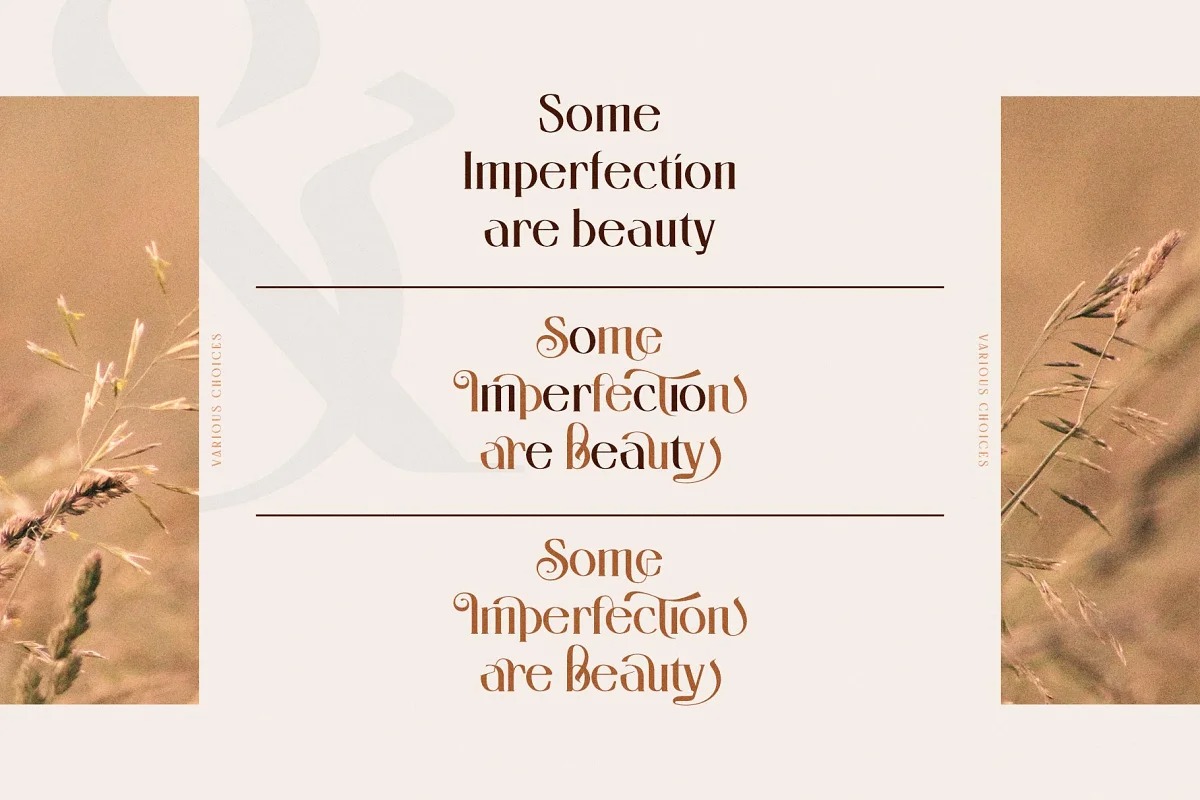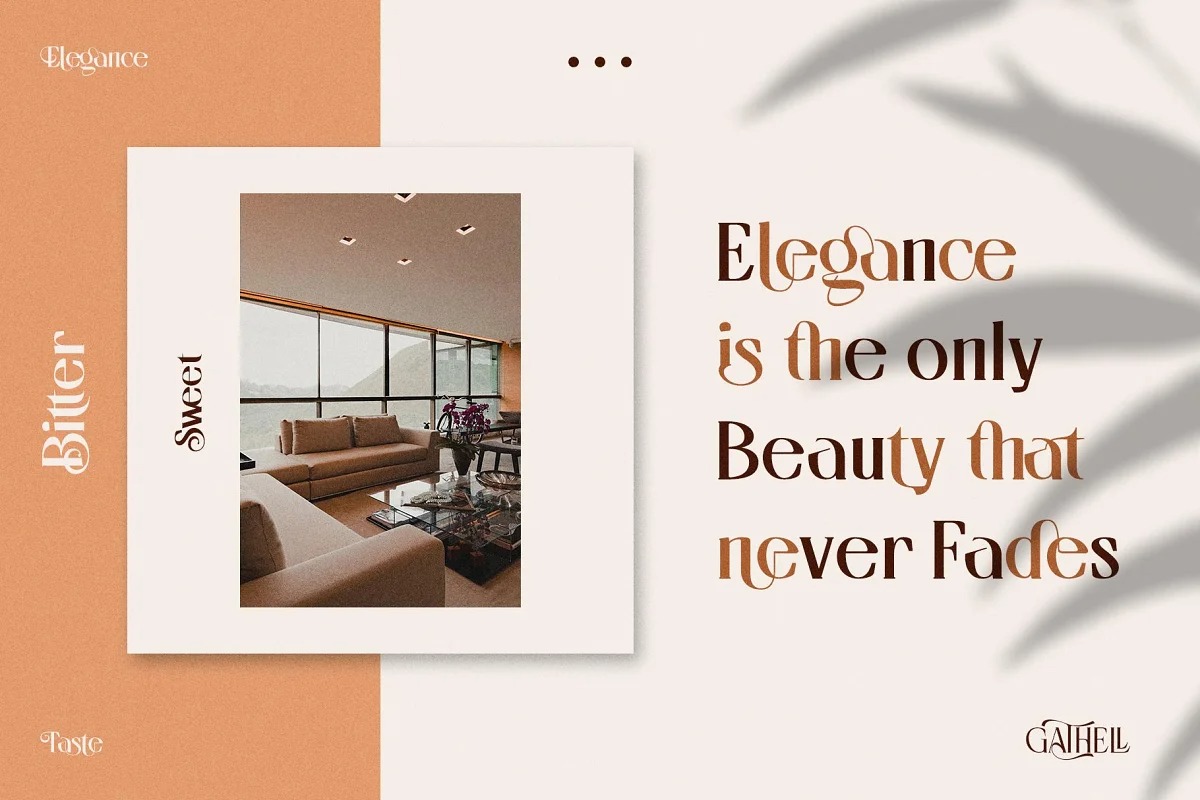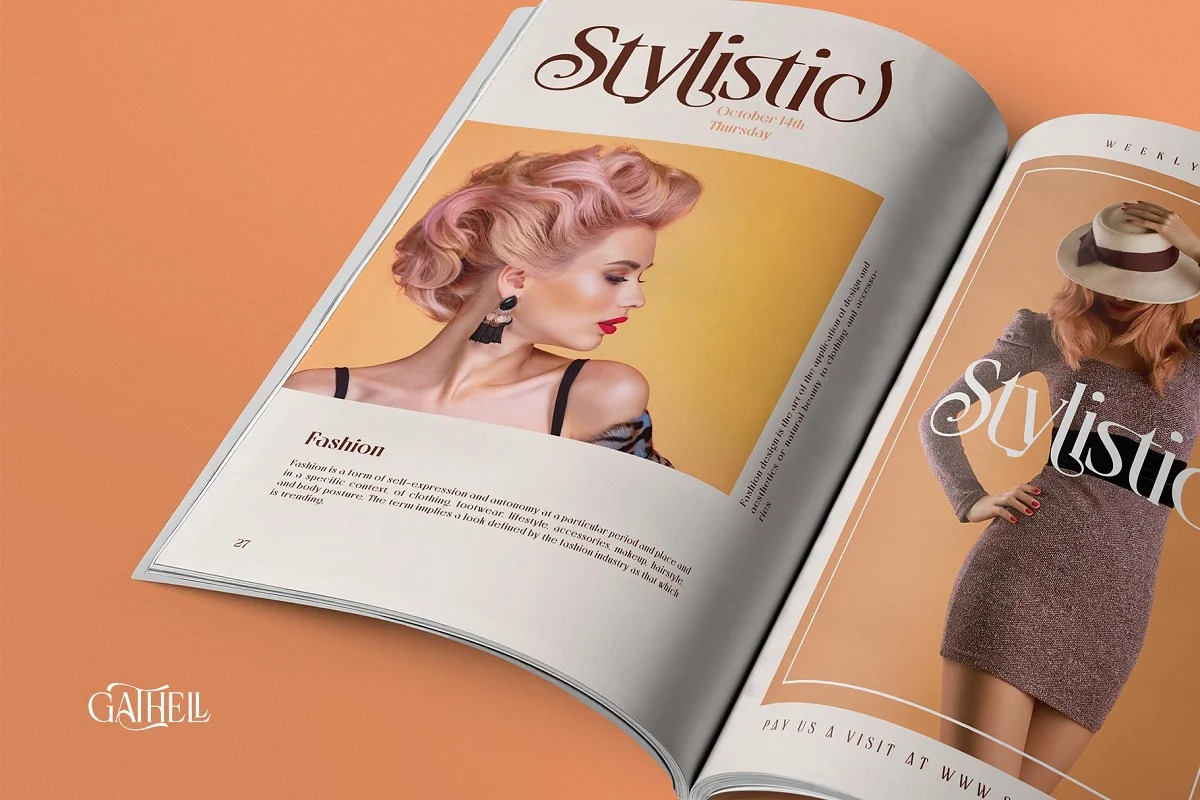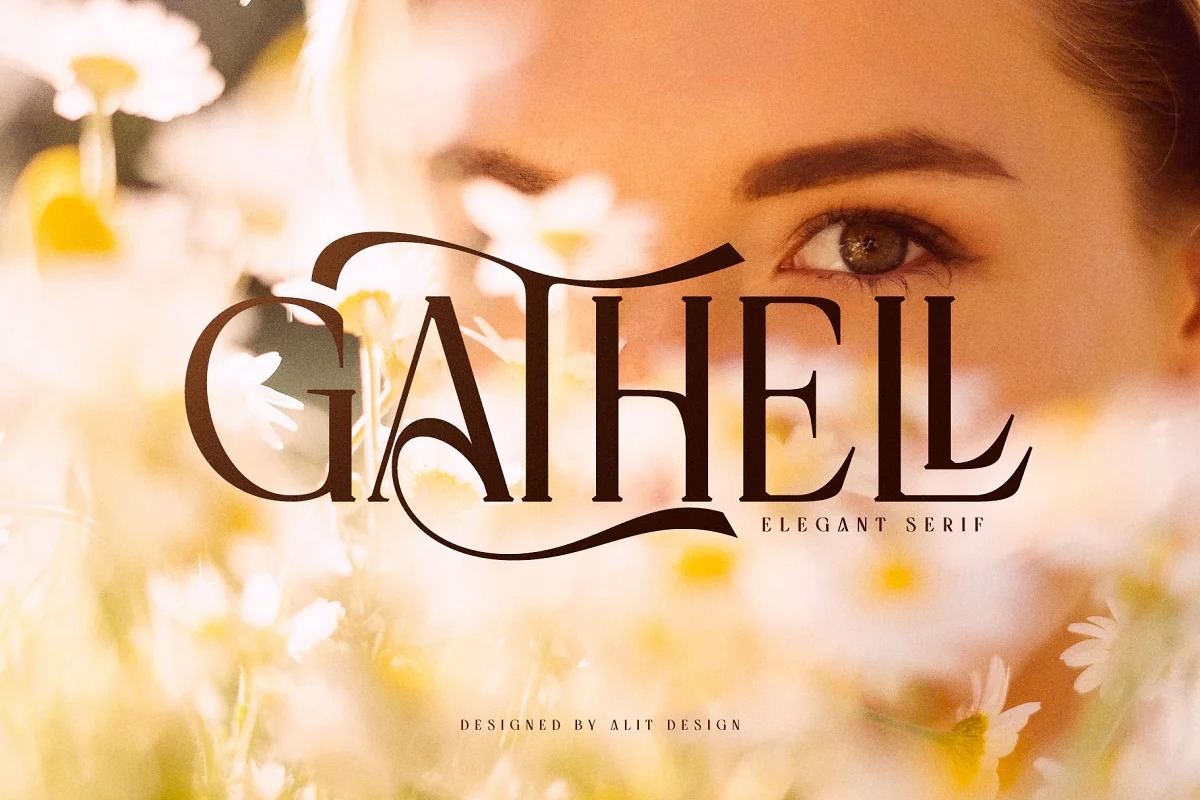
Gathell Font
Gathell Serif Font
This font is designed with a very subtle and modern style. by accessing many alternative fonts and very beautiful bindings to make it seem more special. The elegant modern font creates a unique design and is sure to steal the eye of the design target audience. Besides being unique, the GATHELL font also has a luxury simple character that makes the design charming and luxurious.
These a fonts are perfect for designs with the concept of elegant, luxury, romance, fashion and so on.